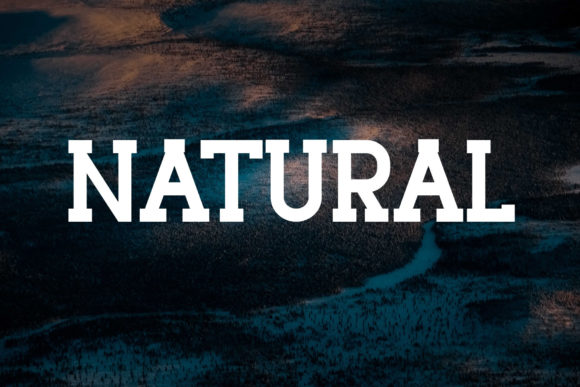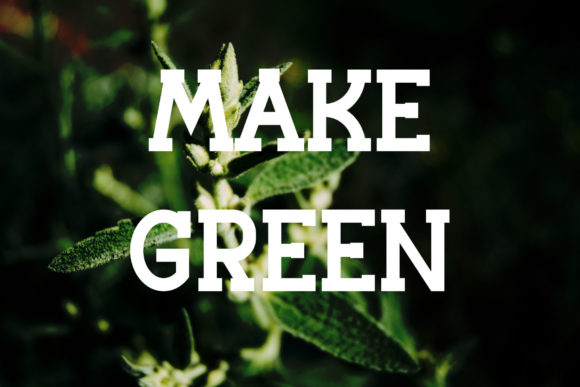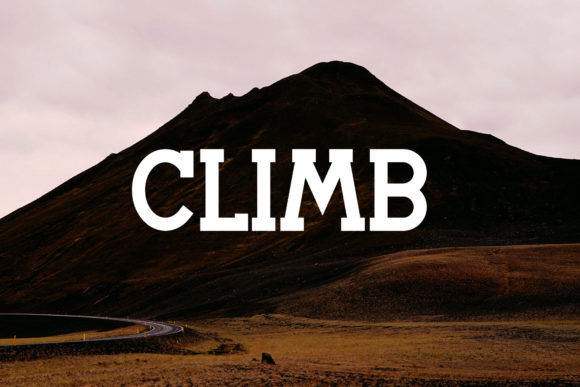
The Great Outdoors, in Fonts: Discovering Camping Font
I still remember the time I was working on a camping brochure project, and my client asked for a font that would evoke the great outdoors. I scoured the internet, tried out a dozen fonts, but none seemed quite right. That was until I stumbled upon Camping Font. It was love at first sight! 😍 The bold, adventurous vibe was exactly what I needed to bring the outdoors to life. In this article, I’ll share my experience with Camping Font, and show you how to make the most of this amazing display font.
An Honest Review of Camping Font
- ✨ Cool and bold: Camping Font is a statement-maker. It’s perfect for posters, flyers, and any print material that needs to grab attention.
- ✅ Highly versatile: Whether you’re designing for a camping brand, an outdoor gear company, or just want to add some adventure to your project, Camping Font fits the bill.
- 💥 Impactful: This font is designed to make an impact. Use it to create stunning headlines, titles, or even quotes.
While Camping Font is an excellent choice for display purposes, it does come with a few limitations:
- ⚠️ Legibility at small sizes: As with many display fonts, Camping Font may not be the best choice for body text or small font sizes. It’s best used for headlines or titles.
- 🤔 Limited OpenType features: While Camping Font does offer some basic OpenType features, it’s not as feature-rich as some other fonts on the market.
A Practical Guide to Using Camping Font
The Story Behind Camping Font
Camping Font was designed by a team of creatives who wanted to capture the essence of the great outdoors. Inspired by vintage camping posters and the rugged beauty of nature, they crafted a font that’s both bold and adventurous. Whether you’re a camper, hiker, or just someone who loves the outdoors, Camping Font is the perfect way to bring that spirit to your designs.
Q: What type of projects is Camping Font best suited for?
A: Camping Font is perfect for projects that need a bold, adventurous vibe, such as camping brochures, outdoor gear branding, and posters.
Q: Does Camping Font come with any OpenType features?
A: Yes, Camping Font offers some basic OpenType features, including stylistic alternates and glyphs.